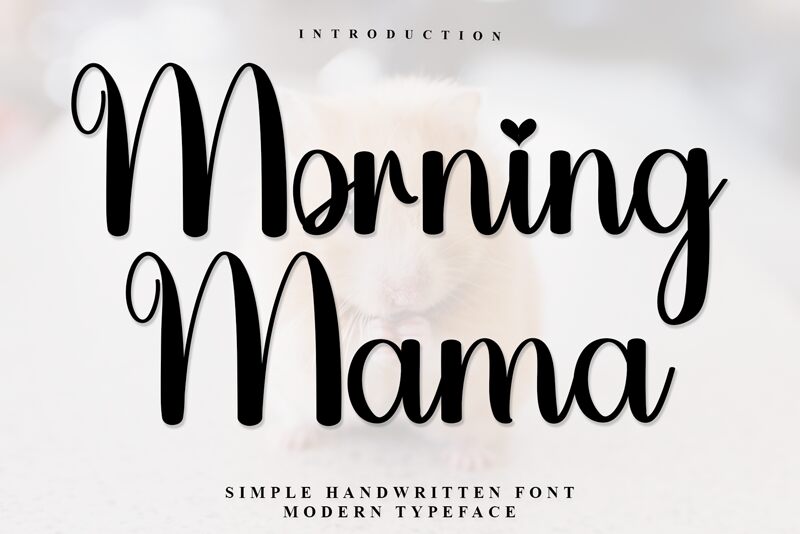
Morning Mama font by Inermedia Studio is a free script font that adds a friendly and approachable look to any design it is used in. Each character has been crafted and perfected by hand to add an inexpensive yet beautiful custom designed feel to a project. The font is suitable for modern and elegant works and it catches the eye by celebrating both the confident and casual nature of its letters.
Morning Mama is inviting and cheerful, and it can be used in banners, advertisements, posters, brochures, packaging designs, magazines, and book covers. It can also be used for apparel items, mugs, pins, badges, and other similar products that consumers would personally use.